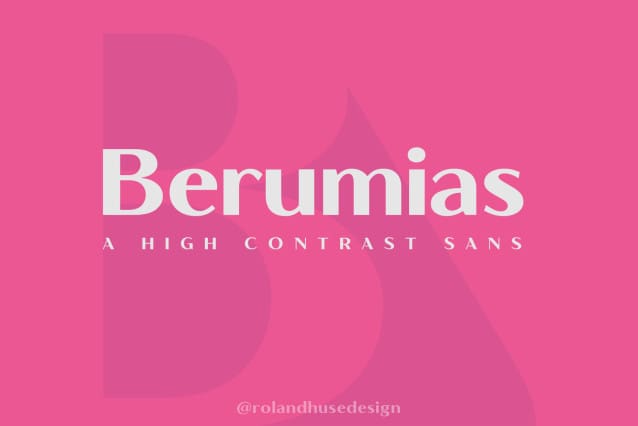
Berumias Font
Berumias Font is a sans serif version of another display font of mine called “Beaumaris” as you can guess the name is made out of these lettres and it has no meaning.
This font contains all Eastern, Central and Western European accented letters and special characters along with European Cyrillic.